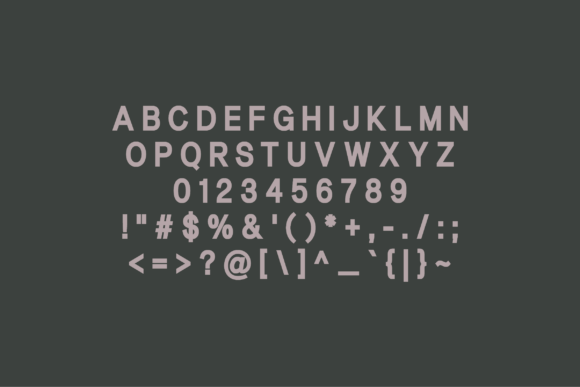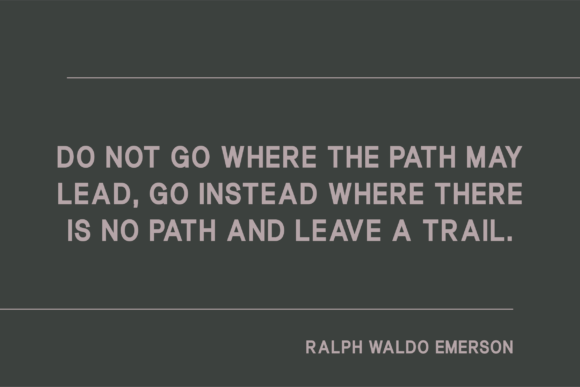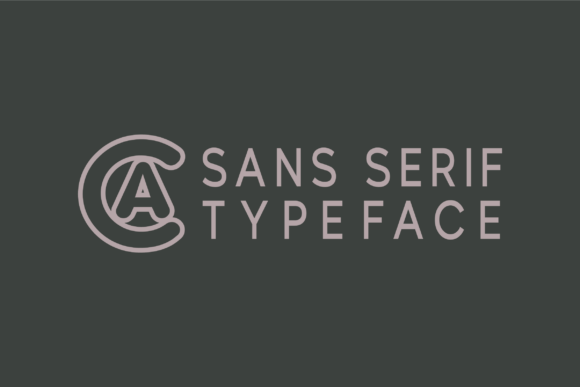
Introducing Haunterush Font: Elevate Your Designs with Modern Elegance
In the world of typography, a well-crafted font can make all the difference in elevating your design to the next level. Meet Haunterush, a modern, classy sans serif typeface that’s taking the design community by storm. This versatile font is perfect for a wide range of applications, from logos and weddings to invitations, quotes, advertisements, and more.
What is Haunterush Font?
Haunterush is a sans serif typeface that boasts a clean, minimalist aesthetic. The font features upper characters, numbers 0-9, and a range of punctuation and symbols, making it an excellent choice for designers and crafters looking for a reliable and stylish font. The sans serif design ensures that the text remains clear and legible, even at smaller font sizes.
Key Features of Haunterush Font
- Modern and Classy Design: Haunterush’s sleek, contemporary design makes it perfect for projects that require a touch of sophistication.
- Upper Characters, Numbers, and Symbols: The font includes a comprehensive range of characters, numbers, and symbols, ensuring that you have everything you need to create stunning designs.
- Versatile and Adaptable: Haunterush is an extremely versatile font that can be used for a wide range of applications, from logos and branding to weddings, invitations, and more.
- Easy to Read: The sans serif design ensures that the text remains clear and legible, even at smaller font sizes.
Use Cases for Haunterush Font
Haunterush’s versatility makes it an excellent choice for various design projects. Here are some use cases to get you started:
- Logo Design: Create a lasting impression with a custom logo that showcases your brand’s personality and style.
- Weddings and Invitations: Add a touch of elegance to your wedding invitations, save-the-dates, and other stationery with Haunterush’s classy design.
- Advertisements and Marketing Materials: Make your advertisements and marketing materials stand out with a modern, attention-grabbing font.
- Print and Magazines: Use Haunterush in your print designs, such as magazines, brochures, and flyers, to add a touch of sophistication.
- Quotes and Typography: Create stunning typographic quotes and posters with Haunterush’s clean and elegant design.
Why Choose Haunterush Font?
With so many fonts available, why choose Haunterush? Here are a few reasons why designers and crafters are falling in love with this modern sans serif typeface:
- Unique and Modern Design: Haunterush’s sleek design sets it apart from other fonts, making it perfect for designers looking for something fresh and modern.
- Highly Versatile: The font’s adaptability makes it an excellent choice for a wide range of applications, from logos to print designs.
Haunterush is a game-changing font that’s sure to elevate your designs to the next level. With its modern, classy design and versatility, it’s perfect for a wide range of applications. Whether you’re a designer, crafter, or DIY enthusiast, Haunterush is an excellent addition to your font library. So why wait? Get creative with Haunterush and bring your designs to life!